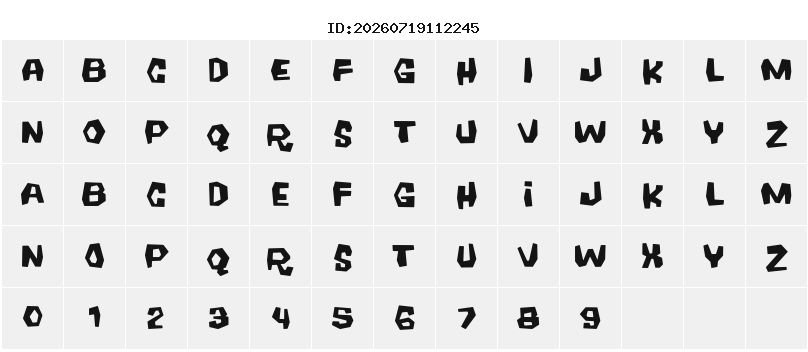
• Font Name: Coffeehouse
• Full Font Name: Coffeehouse Medium
About Coffeehouse.ttf
Coffeehouse.ttf is a modern, elegant sans-serif font designed for ultimate readability and visual harmony. Perfect for branding, headlines, web design, and print materials.